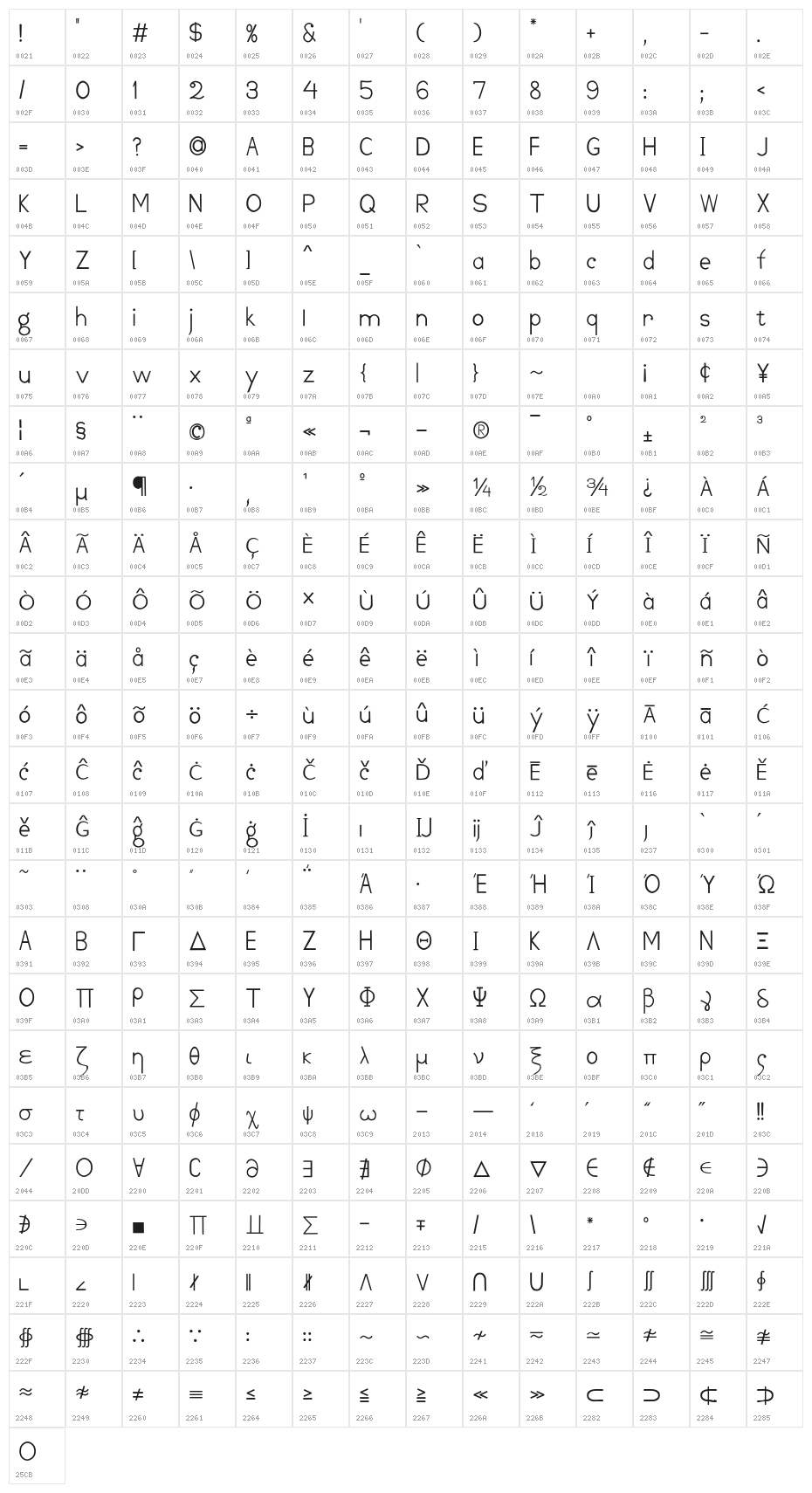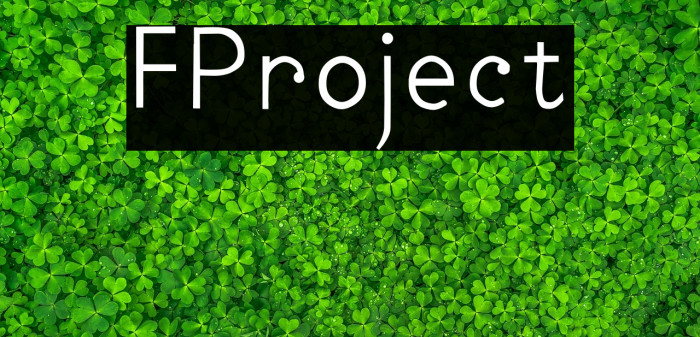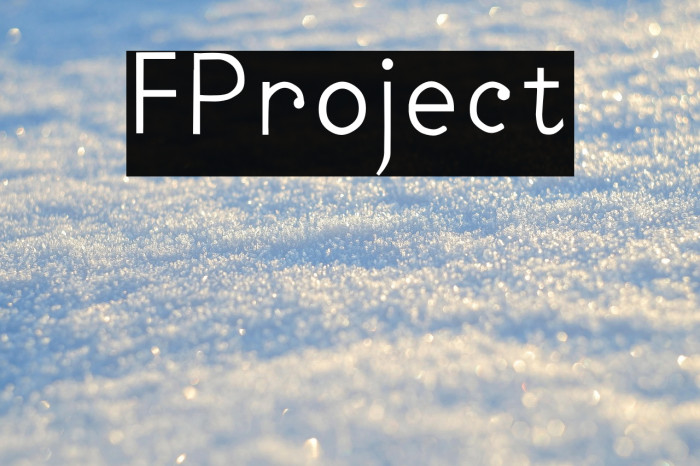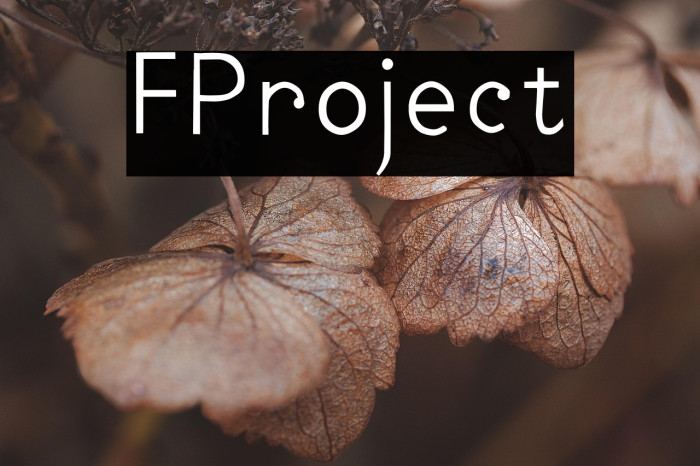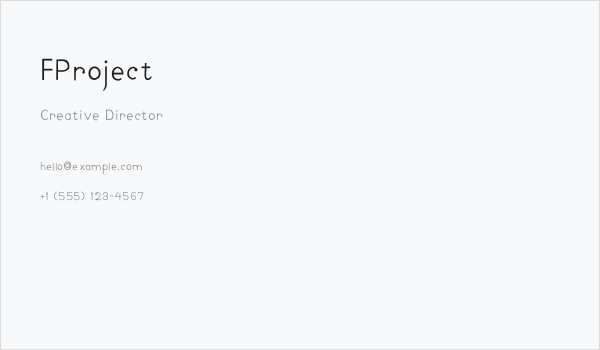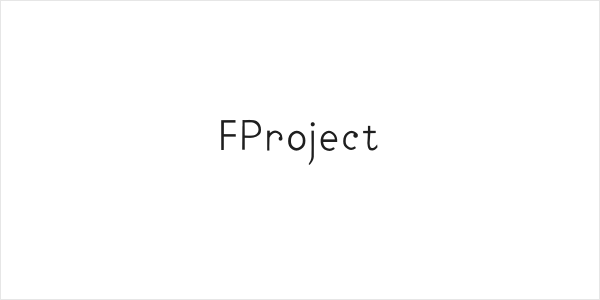
FProject Font
FProject Description
This font features a clean and modern design with a geometric structure. The characters are evenly spaced, providing a balanced and harmonious appearance. The uppercase letters are bold and assertive, while the lowercase letters maintain a consistent flow with rounded edges that soften the overall look. The numerals are clear and legible, making them suitable for various applications. Special characters are distinct and well-integrated into the font's style, enhancing its versatility. The font's simplicity and clarity make it ideal for both digital and print media, ensuring readability across different platforms.